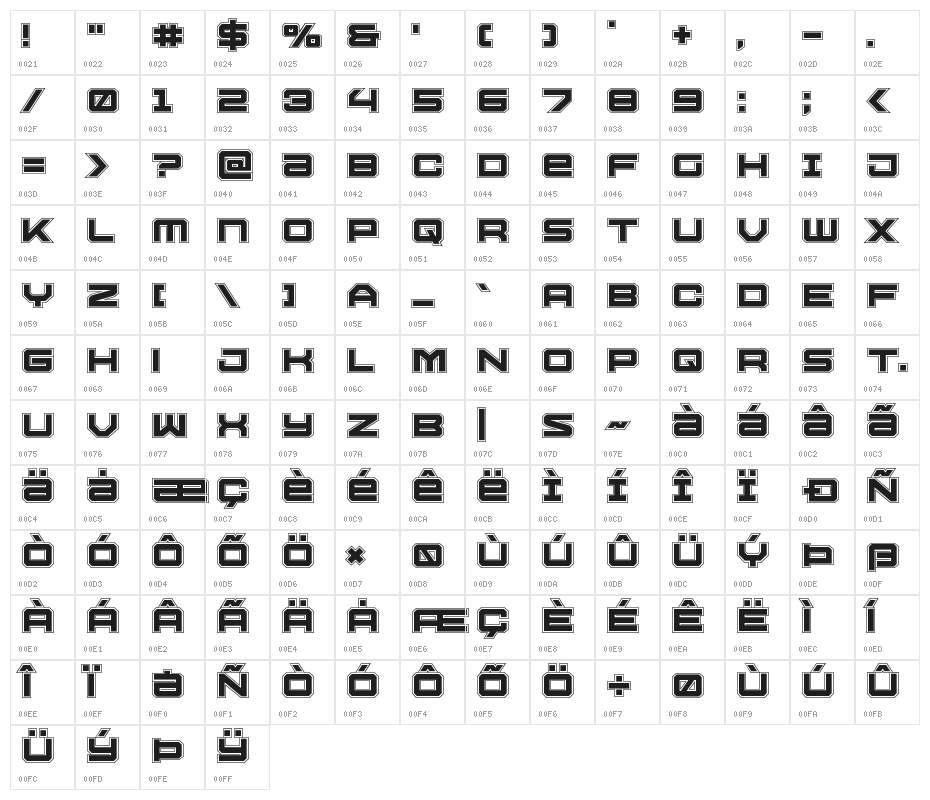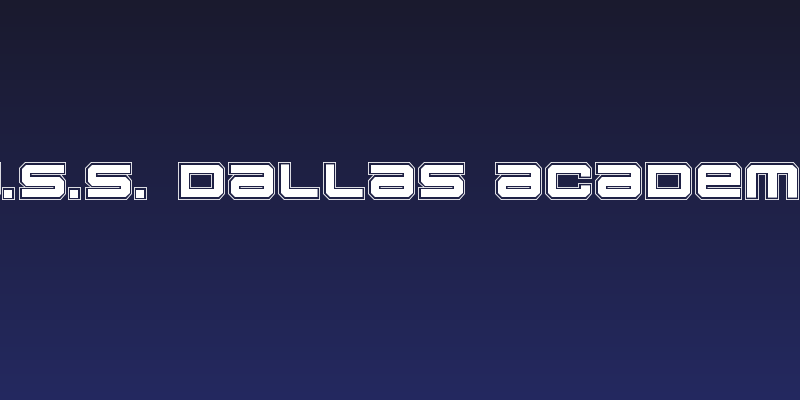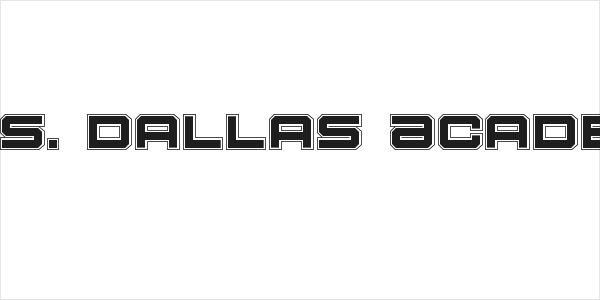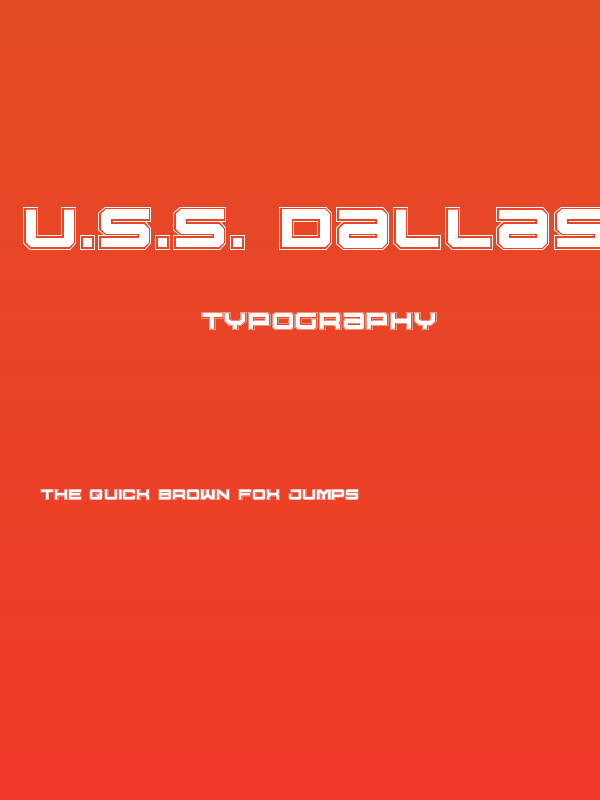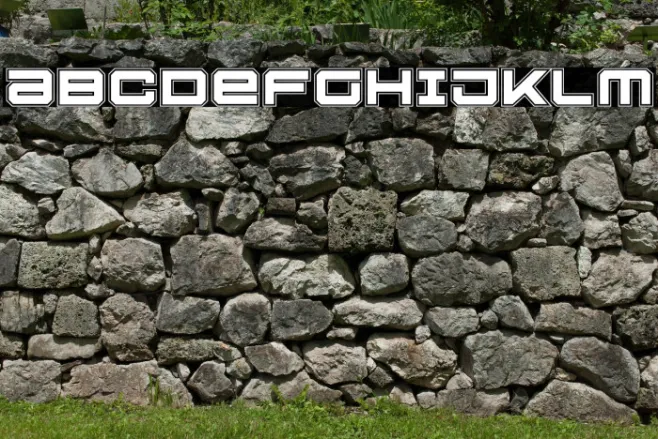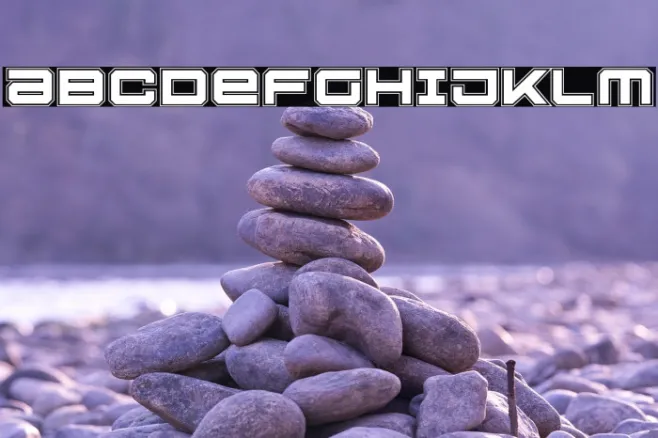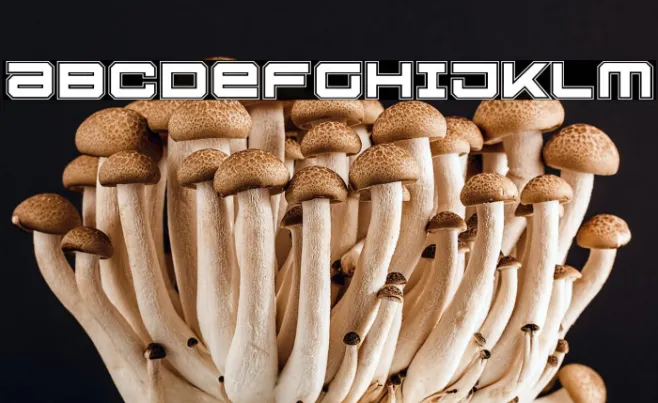
U.S.S. Dallas Academy Font
U.S.S. Dallas Academy Description
This font features a bold, geometric design with a strong presence. Each character is outlined with a thick border, creating a striking contrast between the inner and outer sections. The letters are uppercase, with a uniform height and width, giving a sense of balance and symmetry. The style is reminiscent of futuristic or sci-fi themes, with angular cuts and sharp edges that enhance its modern appeal. The numbers and special characters follow the same design principles, ensuring consistency across all glyphs. This font is ideal for projects that require a bold and impactful visual statement.
| Proposed Projects | Ideal for sci-fi themed posters, video game titles, tech branding, and futuristic event invitations. |